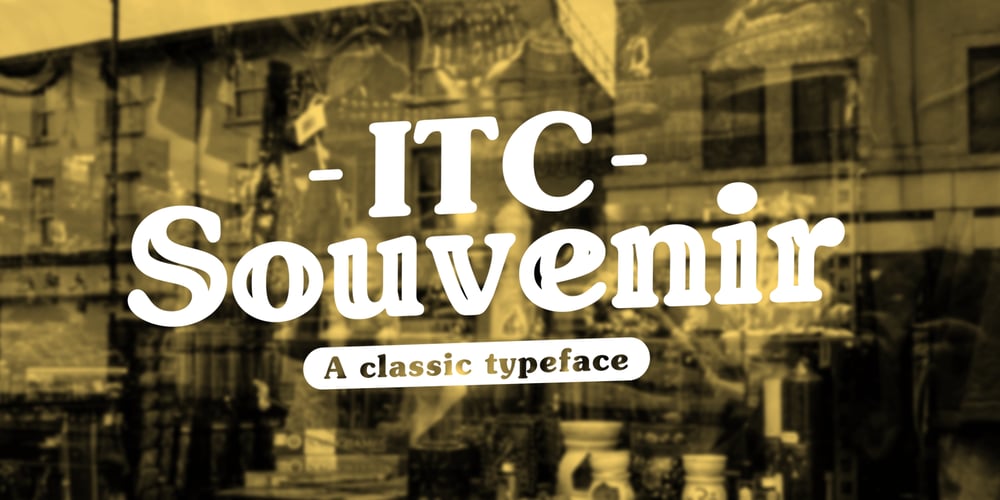
ITC Souvenir Font Family was designed by Edward Benguiat and published by ITC. ITC Souvenir contains 8 styles and family package options. A classic, timeless design by the phenomenal Ed Benguiat!Featured in: Best Fonts for Logos